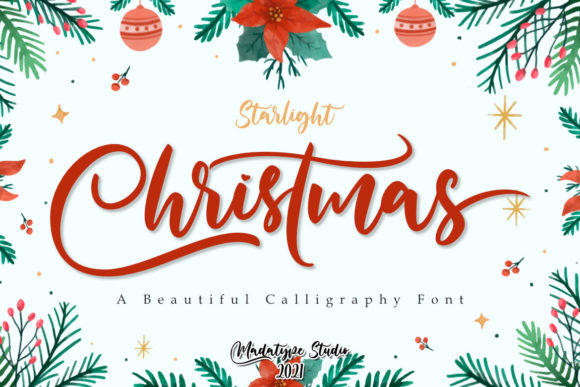
Introducing Starlight of Christmas Font, your ultimate companion for the holiday season! Crafted with love by Madatype Studio, this exquisite script font is specially designed to add a touch of magic and joy to your Christmas projects.
With its charming and playful characters, Starlight of Christmas Font will transport you to a whimsical winter wonderland. The letters seem to dance along the baseline, creating a visually captivating experience that will surely delight your audience. Whether you're creating greeting cards, invitations, or festive banners, this font will bring your designs to life.
But what sets Starlight of Christmas Font apart from the rest? It's the PUA encoding that makes it truly extraordinary. This means you have effortless access to a wide range of enchanting glyphs and swashes. Adding a unique flourish to your text has never been easier! Let your creativity shine as you adorn your projects with elegant letter variations and decorative elements.
Looking to spread holiday cheer through your online store or blog? The search ends here, as Starlight of Christmas Font is the perfect choice for captivating your audience. Enhance your product descriptions, blog posts, and social media graphics with this eye-catching font, and watch as your engagement skyrockets. Your customers won't be able to resist the festive charm that this font exudes.
Imagine the joy on your customers' faces as they browse through your e-commerce collection page, instantly drawn to the captivating summary of the fonts. With Starlight of Christmas Font as the centerpiece, your collection becomes a visual feast that ignites their excitement to download and own this must-have font.
Embrace the spirit of the season by infusing your projects with the warmth and magic of Starlight of Christmas Font. Let its expressive characters and versatile swashes transport you and your audience to a world filled with holiday cheer. Don't settle for ordinary fonts when you can have the best font for Christmas right at your fingertips.
So, why wait? Unleash your creativity, spread joy, and make your Christmas projects shine with Starlight of Christmas Font. Download it now and experience the magic for yourself!